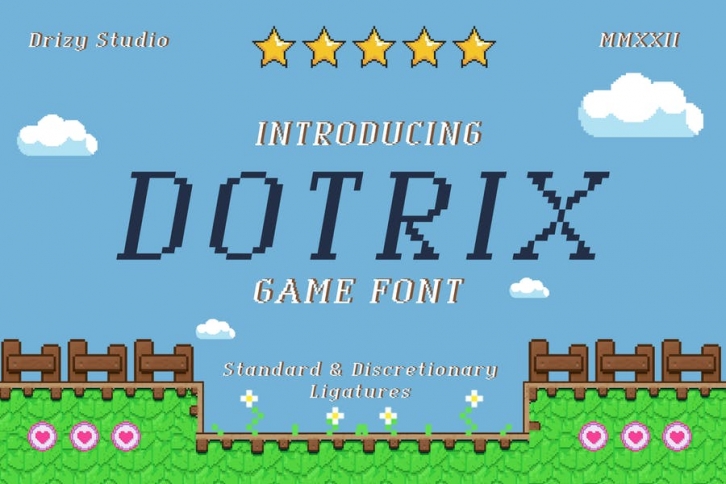
Dotrix is a serif, game, pixel font. Offers all the game pixel styles you will need for a successful project.
Dotrix Features:
- Uppercase & Lower Case
- Numeral & Punctuation